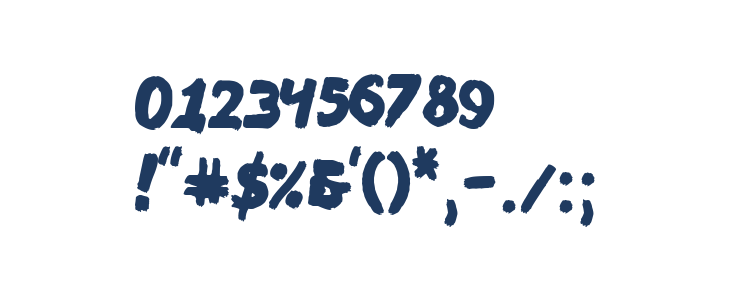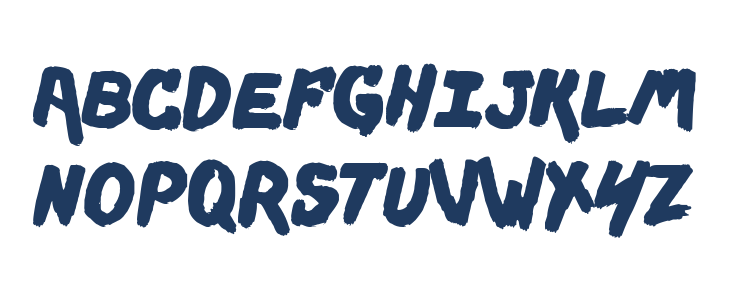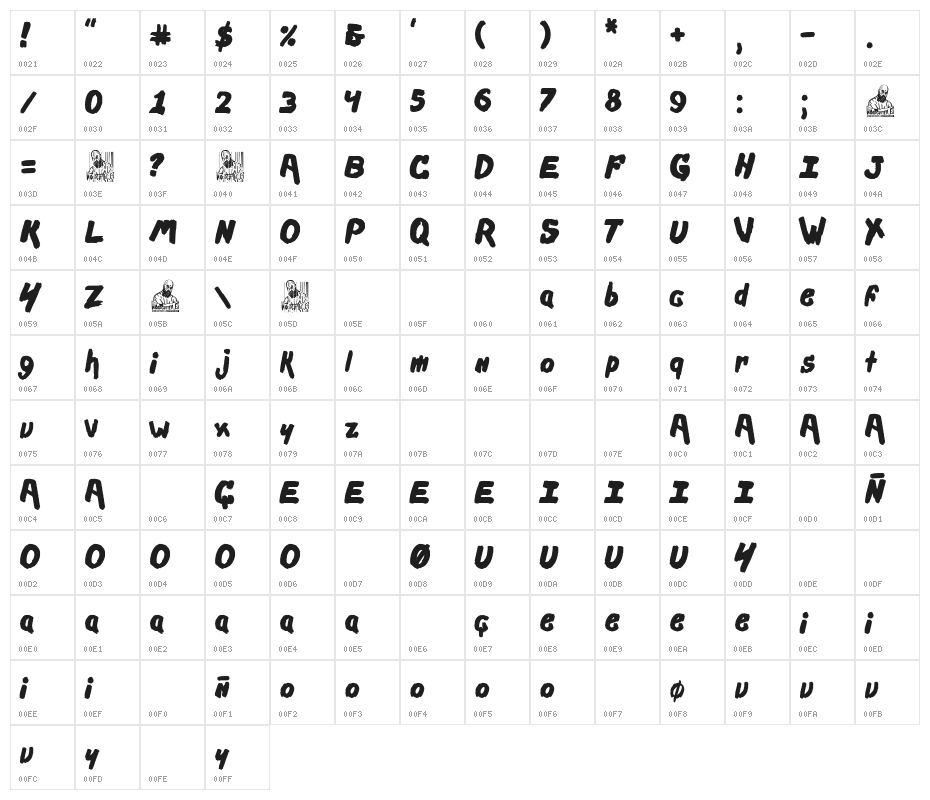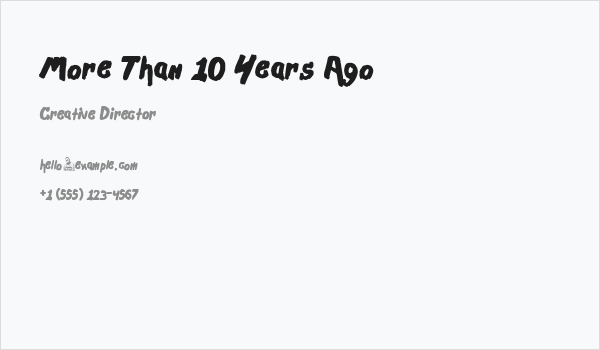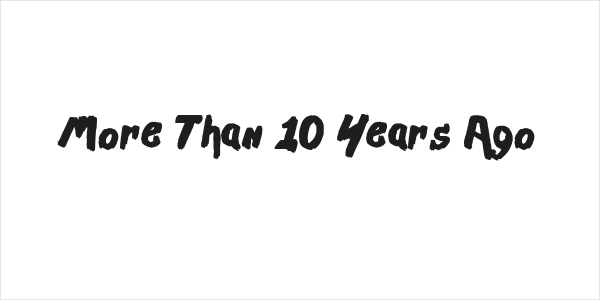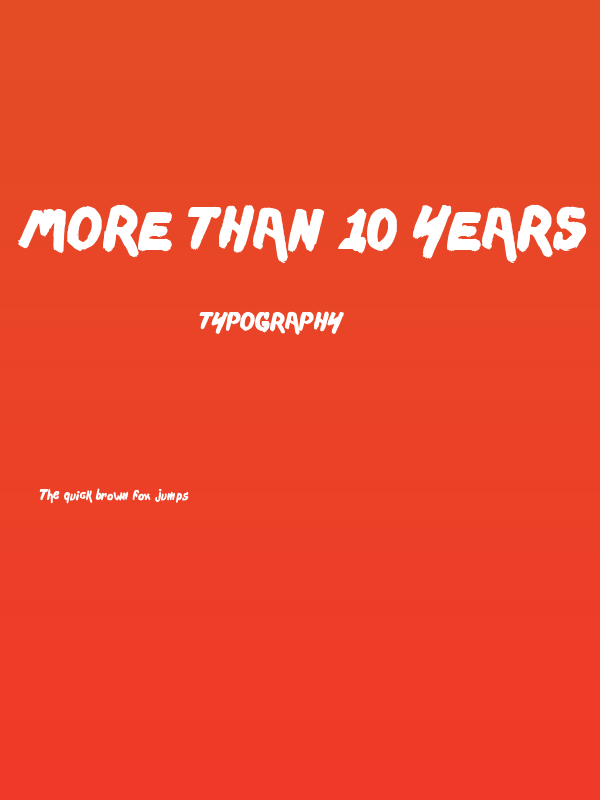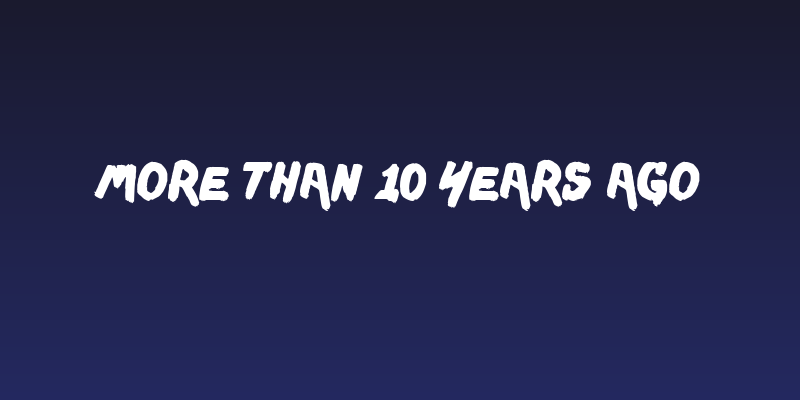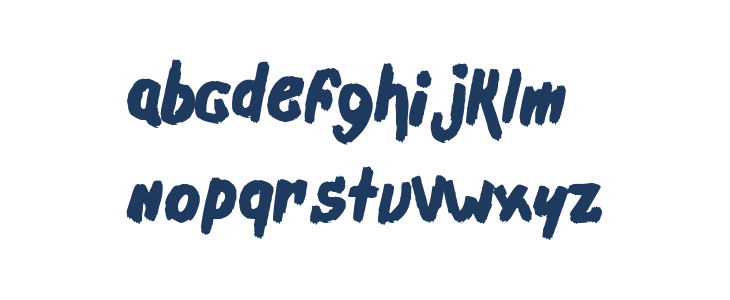
More Than 10 Years Ago Font
More Than 10 Years Ago Description
A bold, hand-drawn style font with irregular, brush-like strokes and a playful, energetic appearance. The characters are wide and have uneven edges, giving a casual and expressive feel.
| Overall Style | Decorative, Playful, Hand-drawn |
| Use Case | Headlines, Posters, Logos, Informal Branding |
| Proposed Projects | Children's books, comic titles, posters, informal branding, event flyers, creative social media graphics. |